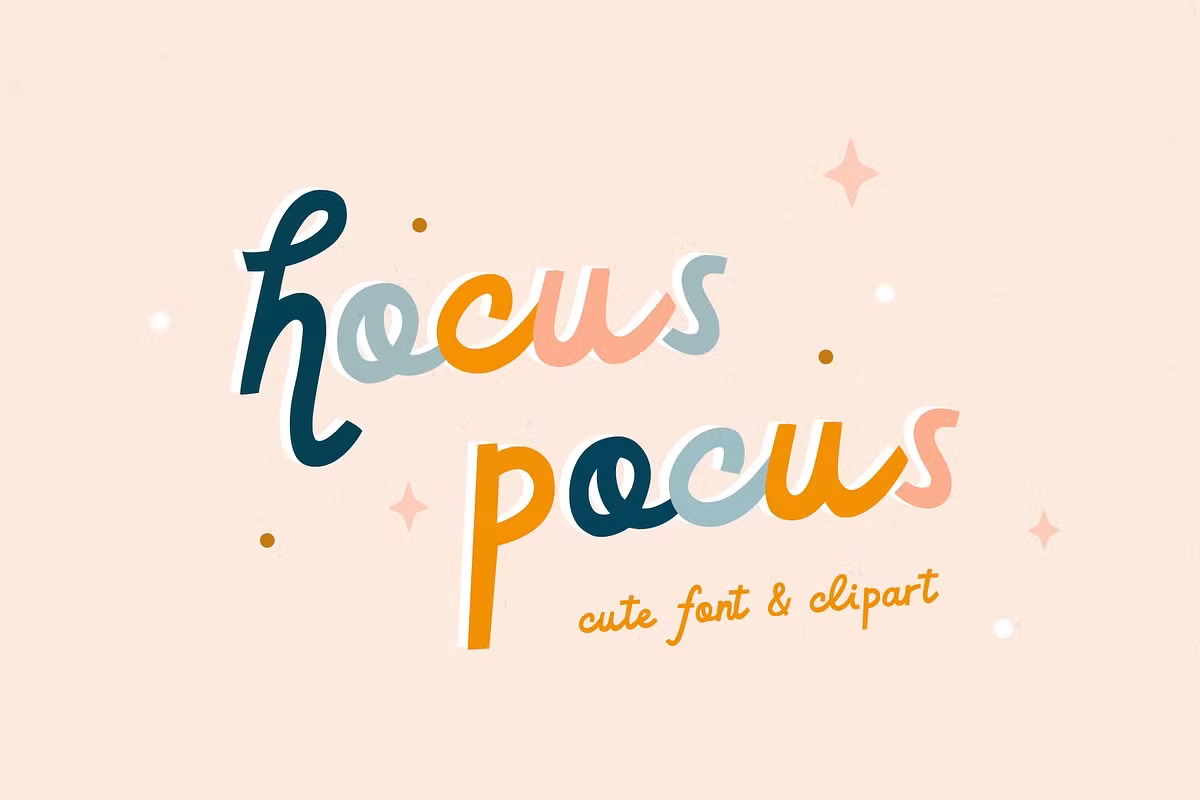
Hocus Pocus | Cute Font Free Download
The Hocus Pocus | Cute Font Free Download is a playful and charming typeface designed to bring a fun, whimsical vibe to your designs. Perfect for creating quirky logos, invitations, posters, and social media graphics, this font adds a cute, lighthearted touch to any project. Please note, for commercial use, a license must be purchased. You can download it for free for testing purposes.
With its rounded edges and cheerful style, the Hocus Pocus | Cute Font Free Download is ideal for projects that require a touch of personality and fun. Whether you're designing for children’s products, event promotions, or any project that needs a joyful feel, this font will add a delightful element to your work.